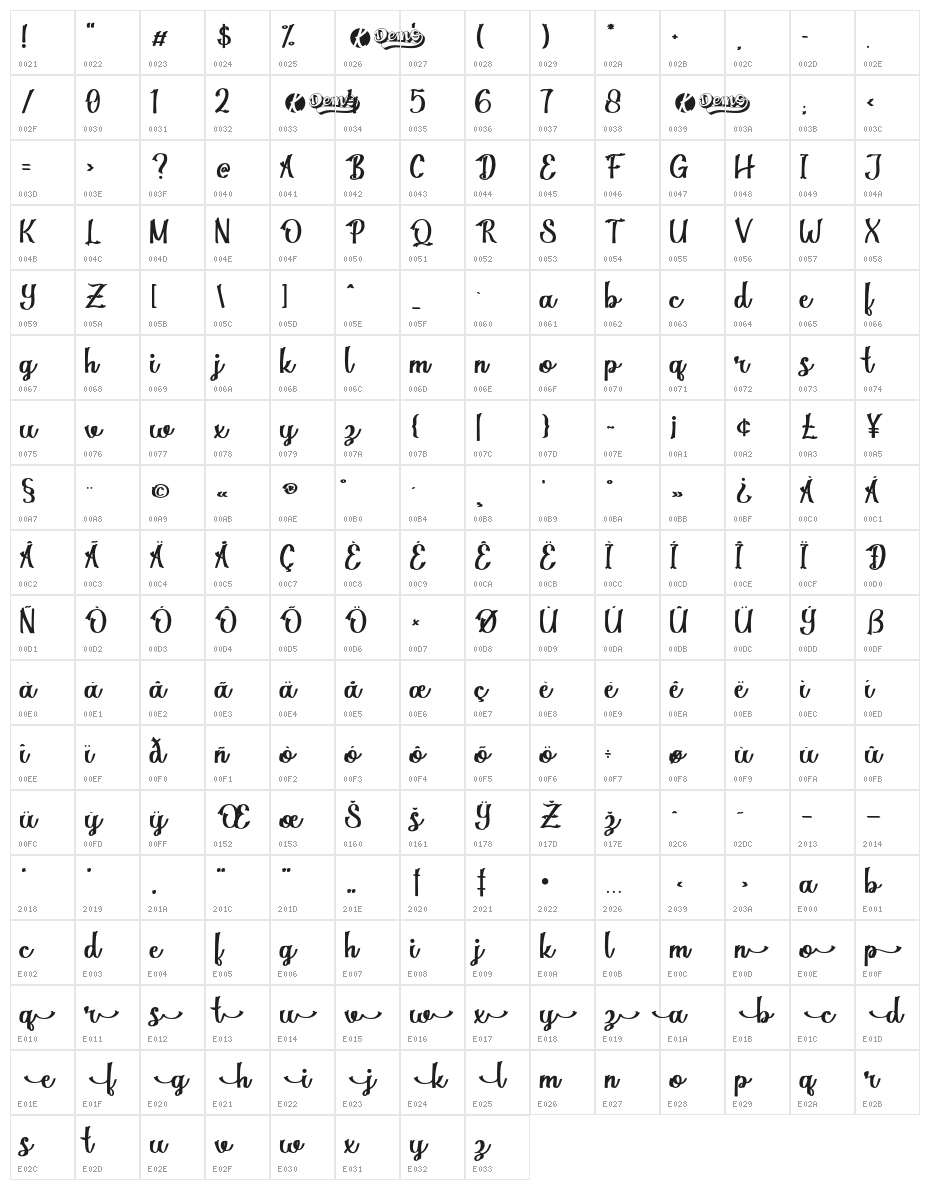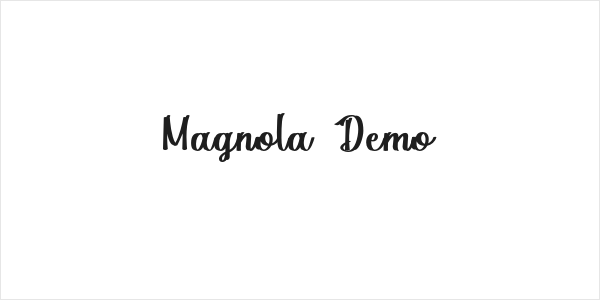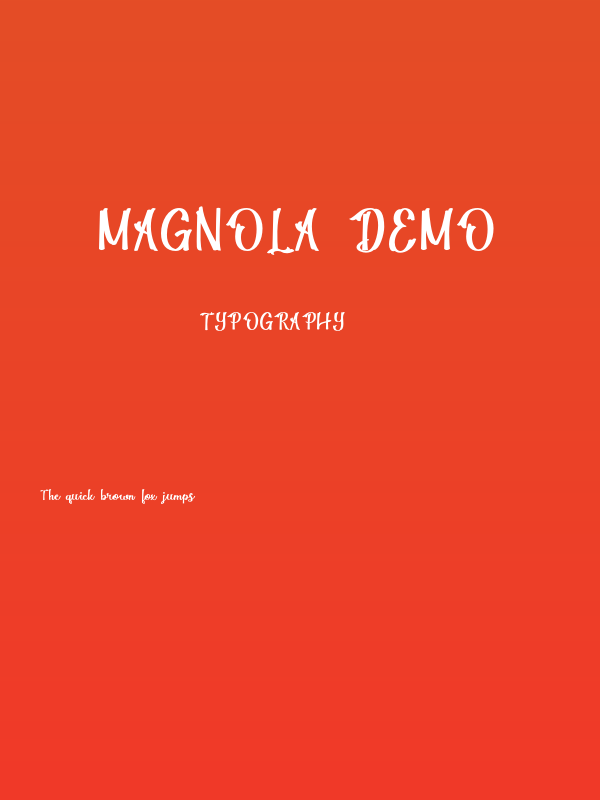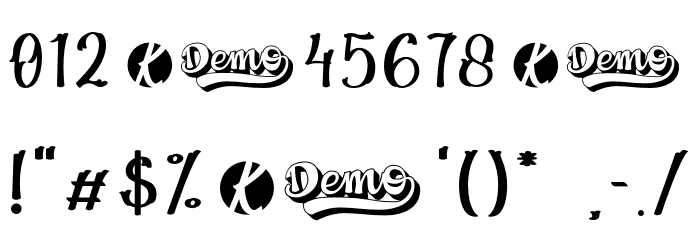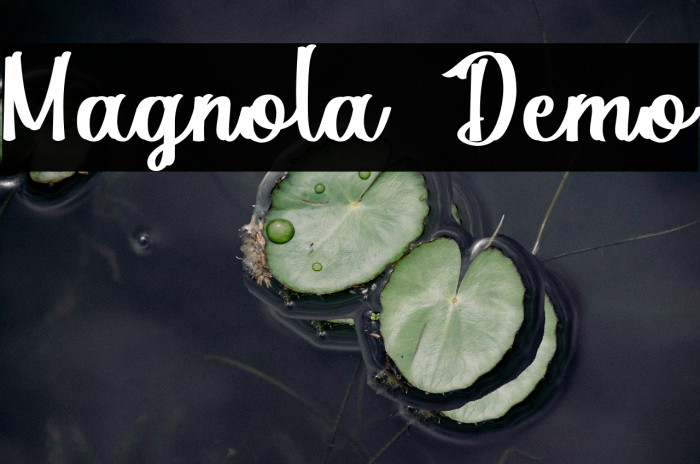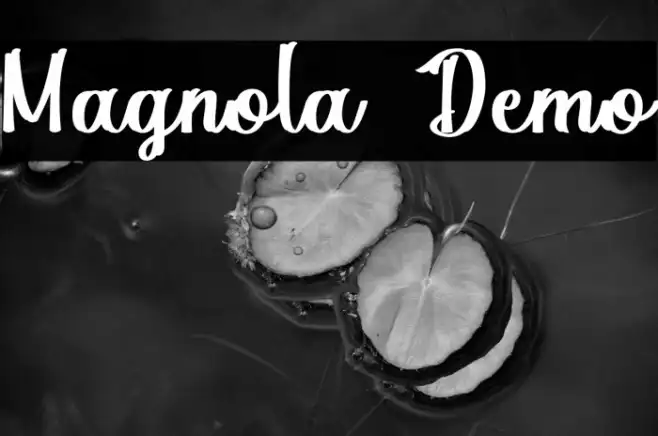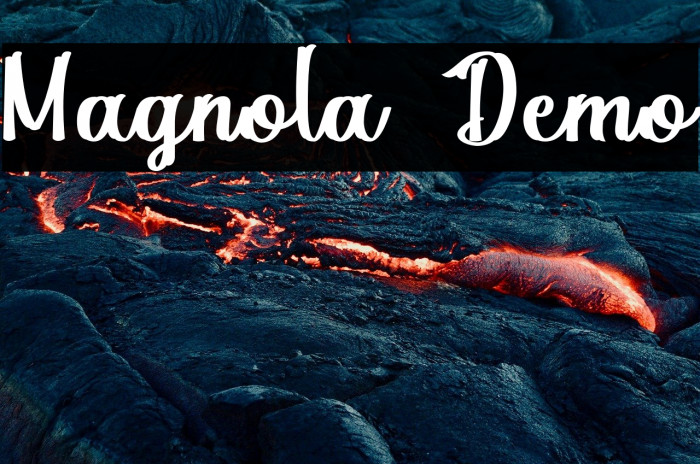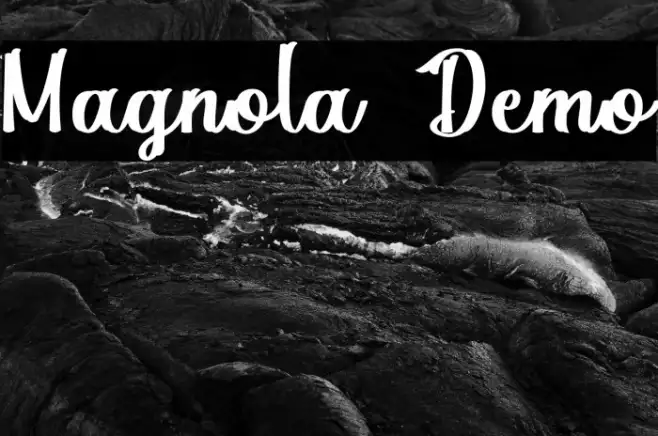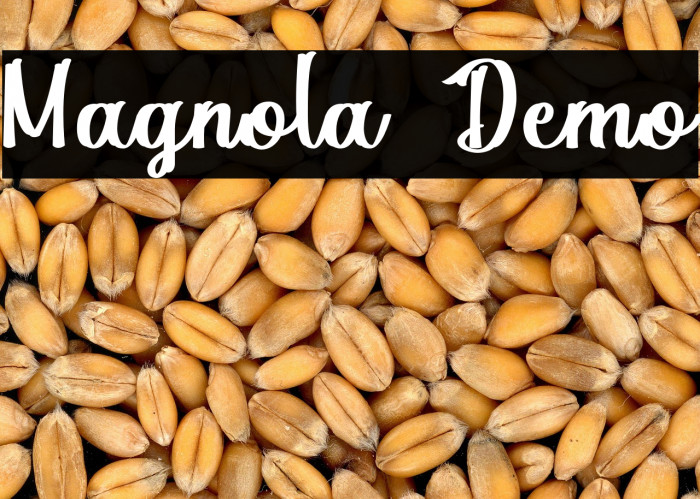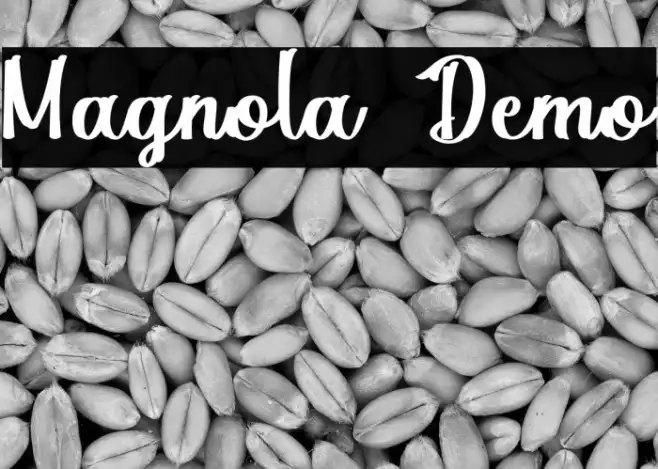
Magnola Demo Font
Magnola Demo Description
This font features a bold and expressive style with a handwritten flair, characterized by its flowing curves and artistic strokes. The uppercase letters exhibit a unique blend of elegance and creativity, with each character displaying distinct flourishes. The lowercase letters maintain a cohesive look, complementing the uppercase with their smooth and rounded forms. Numbers and special characters are crafted with the same attention to detail, ensuring consistency across all elements. The overall design exudes a sense of dynamism and personality, making it suitable for projects that require a touch of individuality and style.
| Use Case | Logos, Invitations, Creative projects |
| Proposed Projects | Ideal for branding, logo design, invitations, and creative projects that require a personal touch. |